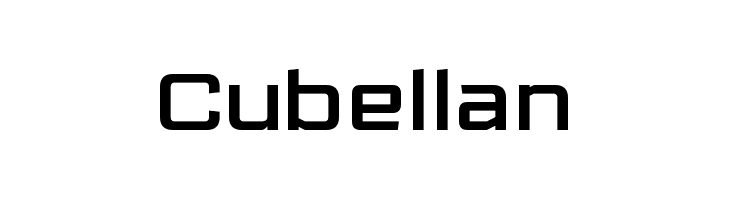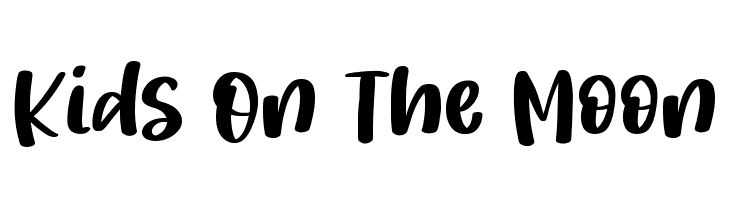
A bold, rounded font with a playful and friendly style.
A bold, shadowed font with a three-dimensional effect, perfect for impactful designs.
A graceful script font with fluid, interconnected strokes and elegant flourishes.
An elegant, flowing script font with a handwritten style.
A classic serif font with elegant strokes and moderate contrast, perfect for sophisticated designs.
A dynamic, expressive handwritten font with fluid cursive letterforms.
A modern, geometric font with consistent stroke width and balanced characters.
A playful, rounded font with a youthful and energetic style.
A playful, bold, and hand-drawn font with a lively, rounded style.
A playful, bold font with a bubbly, cartoonish style and 3D shadow effect.